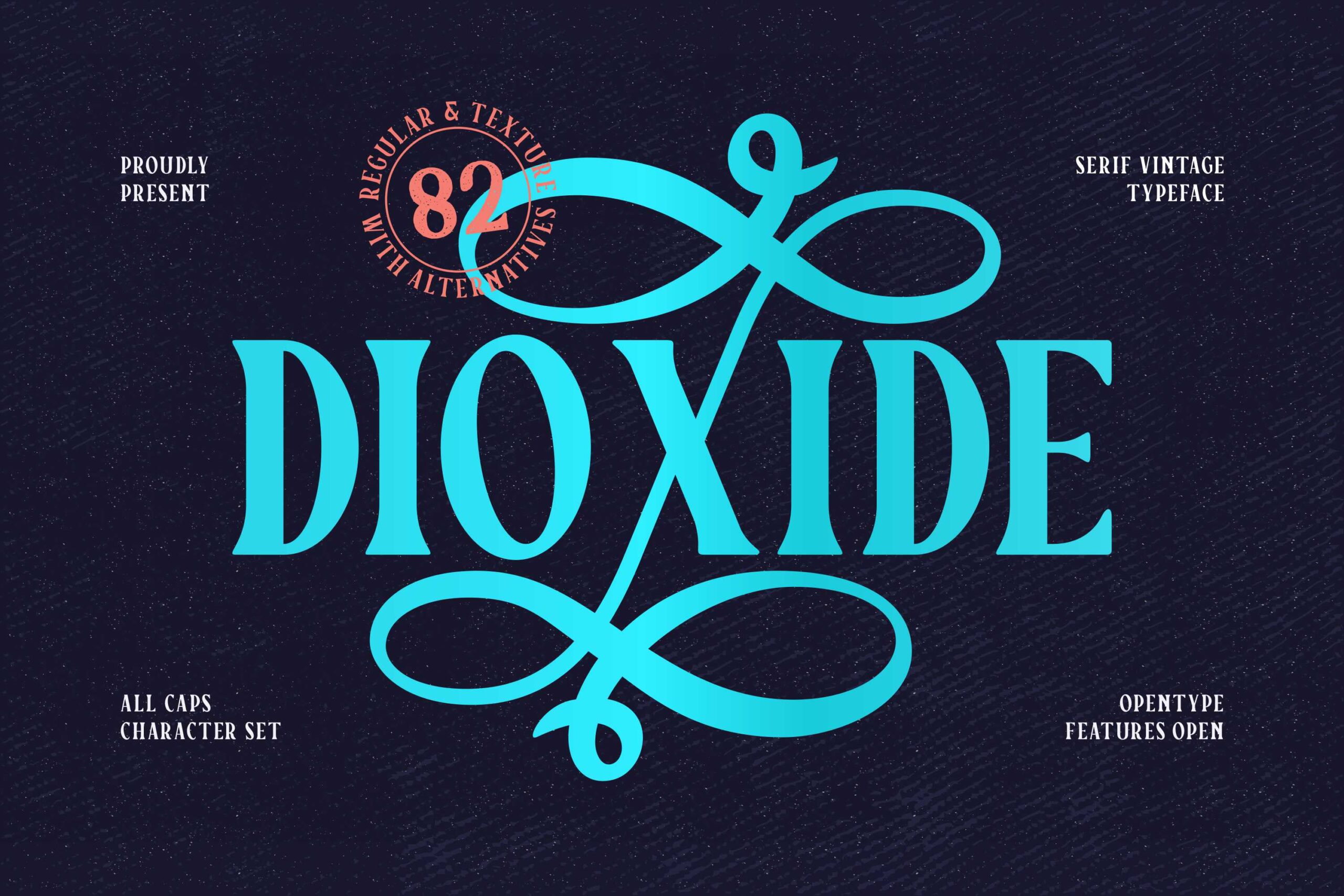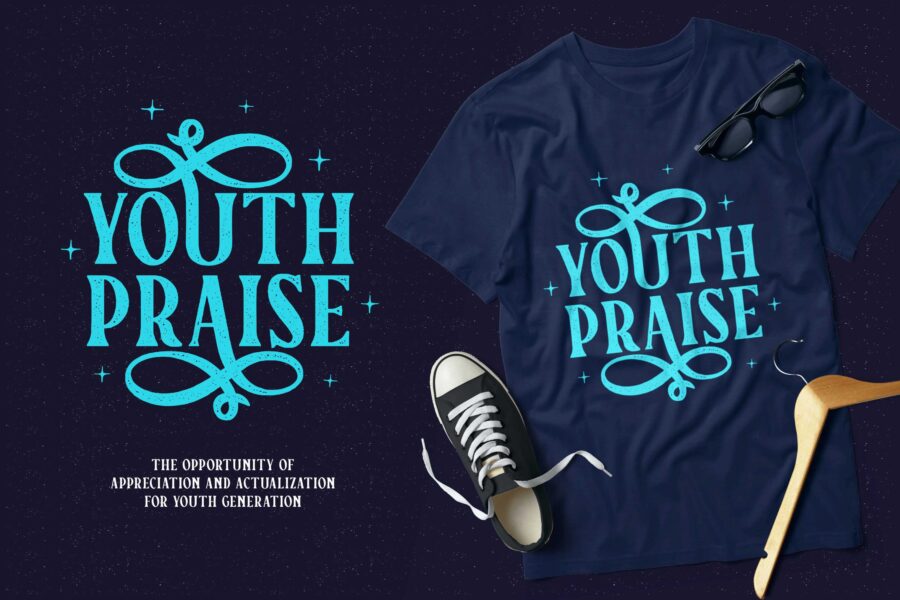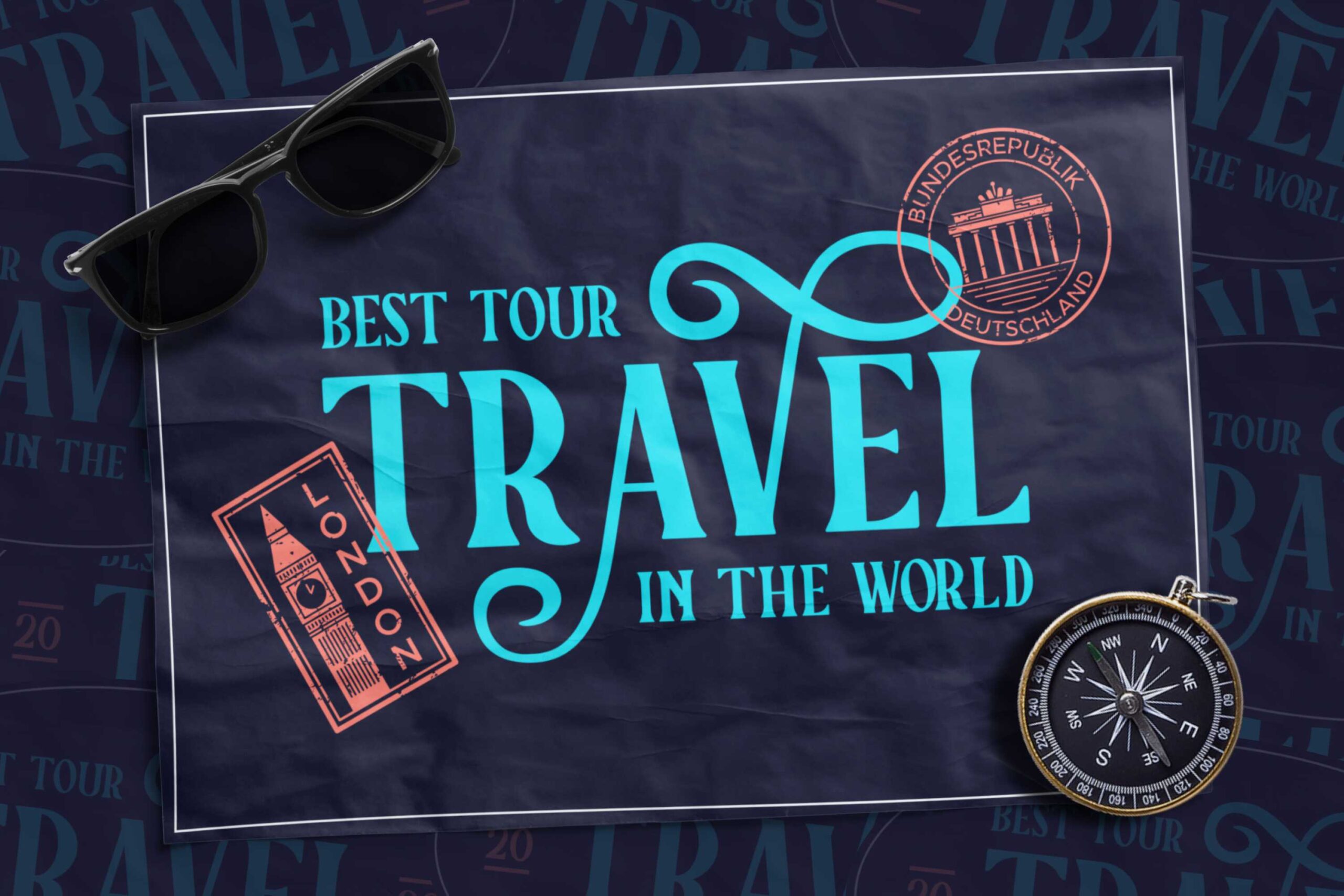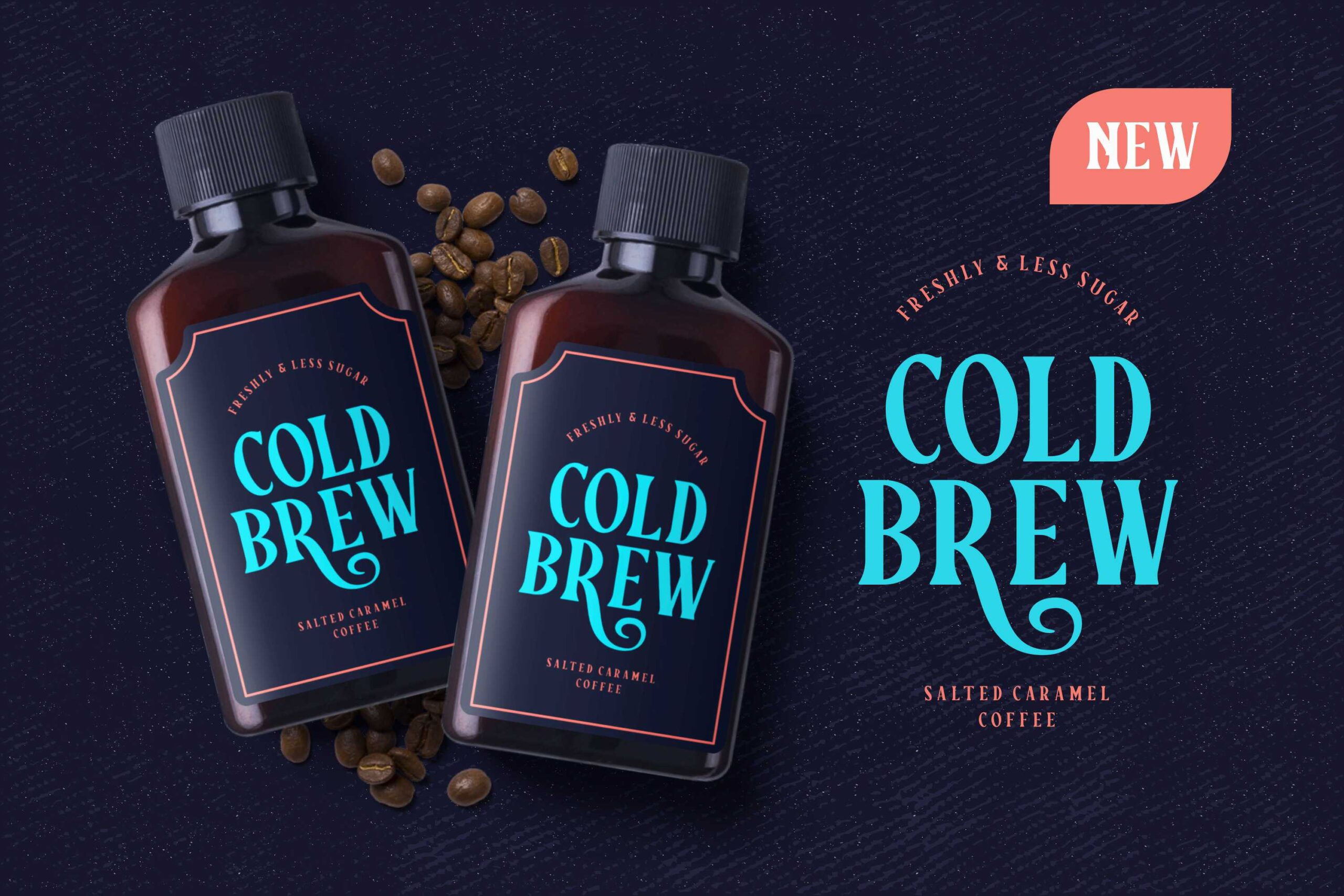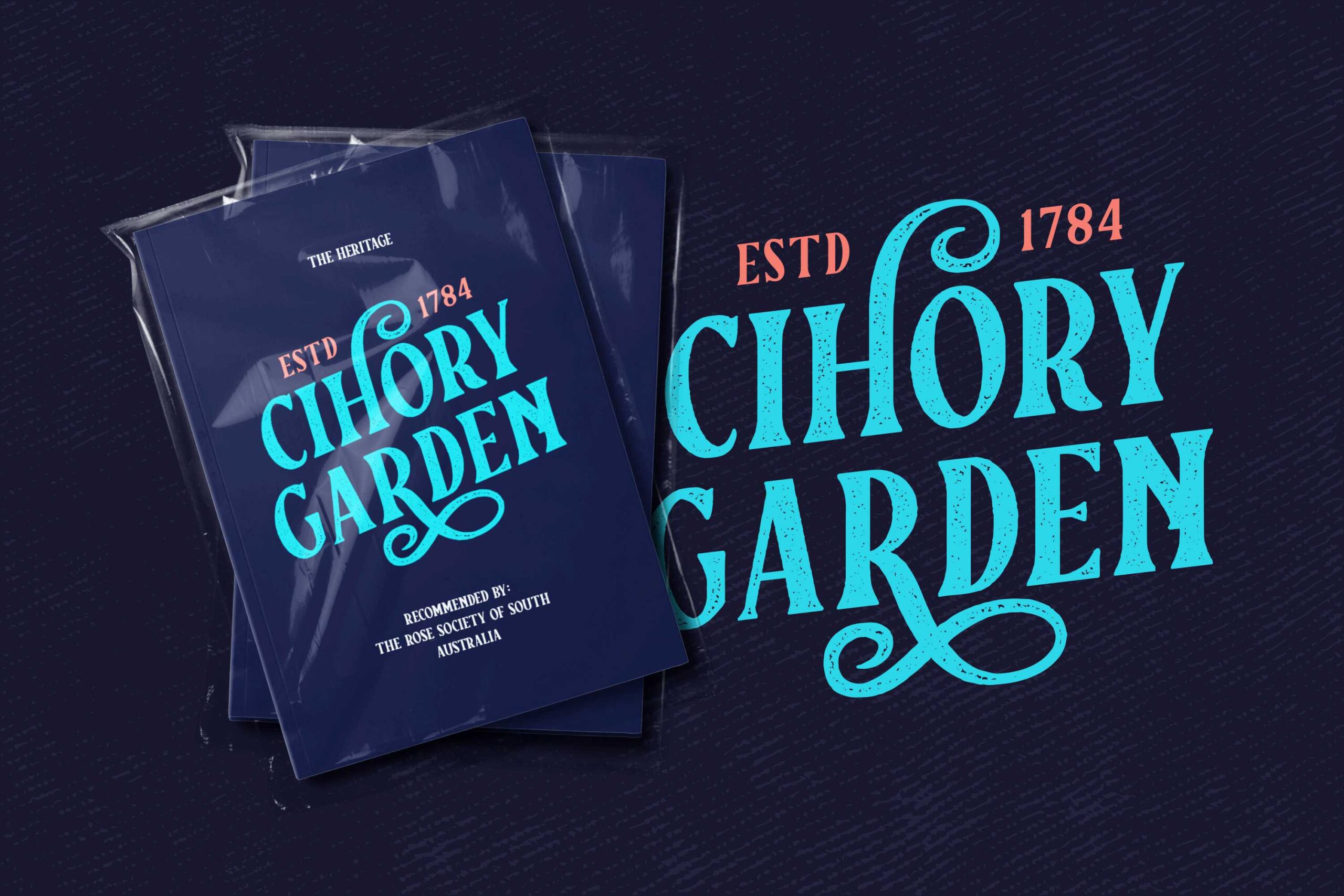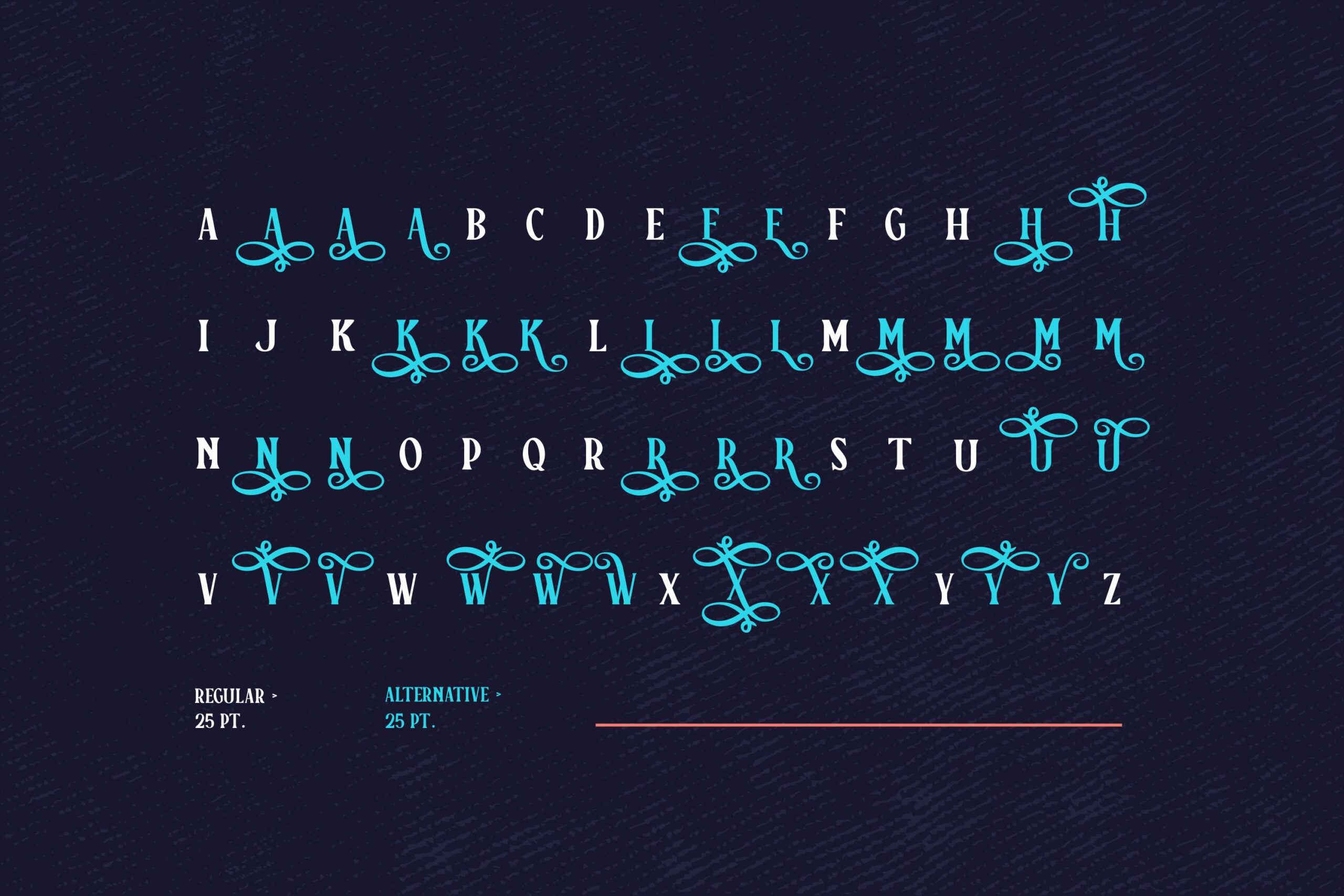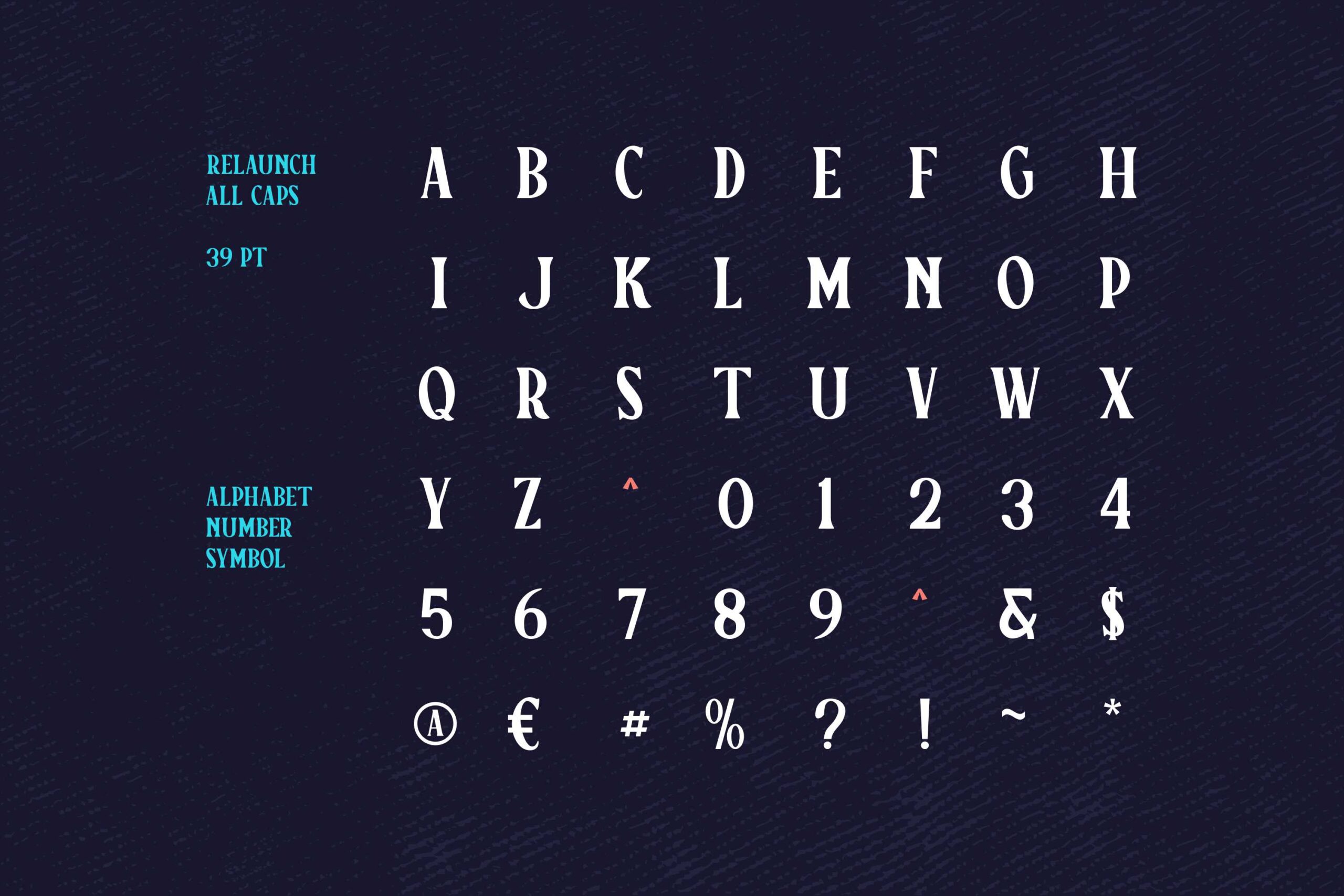
Dioxide Vintage is a bold serif display typeface with a strong vintage character and high-impact elegance. Featuring an all-caps character set, this font delivers a distinctive blend of classical charm and modern strength. Its sculpted serif terminals and unique alternate glyphs—especially with ornamental swashes—add a luxurious, almost theatrical flair to titles and branding compositions.
Perfect for packaging, merchandise, vintage posters, and typographic apparel, Dioxide Vintage comes in both regular and textured styles, giving creators flexibility to craft timeless visuals. With OpenType features enabled, designers can explore beautiful alternates that enhance the flow and sophistication of every composition.